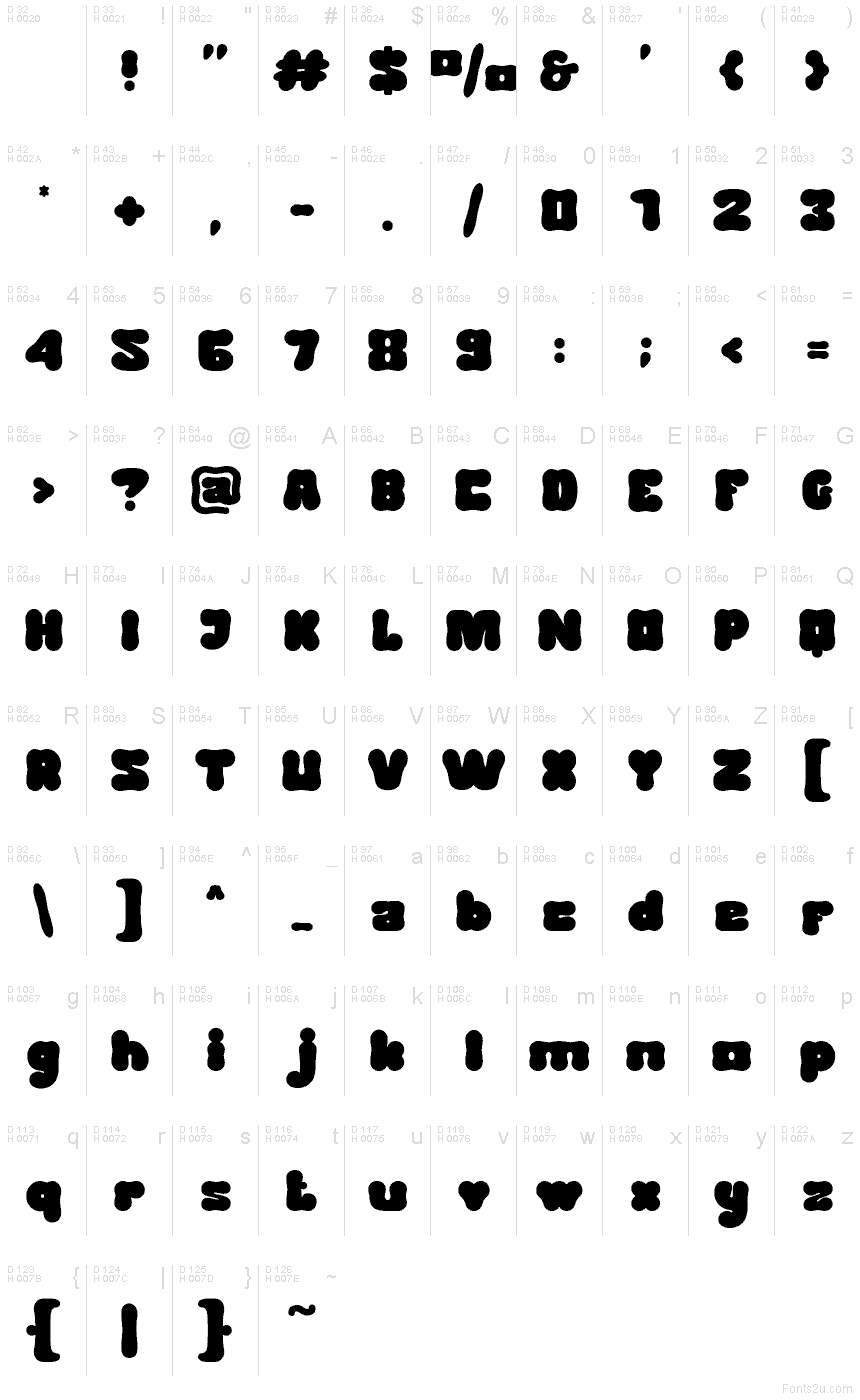
The Hepcat
The Hepcat font by PutraCetol Studio is a whimsical bold display typeface with bubbly letters and a casual aesthetic. An expanded width allows every letterform to breathe, adding to the groovy nature of each. The fun 1960s influence carried through everything from the curves, edges, and tails in every character makes this free display font retro-inspired.
Attractive rounded edges can be used with no moderation in posters, package designing, signs, movie covers for indie films or comedies. Design t-shirts using this typeface to promote music festivals that feature past legends like Frank Sinatra or promo parties that have retro elements like polka dots in them. Formulating headings for your magazine write-ups as well as titles for social media posts would both absorb any good vibrations The Hepcat conveys effortlessly.